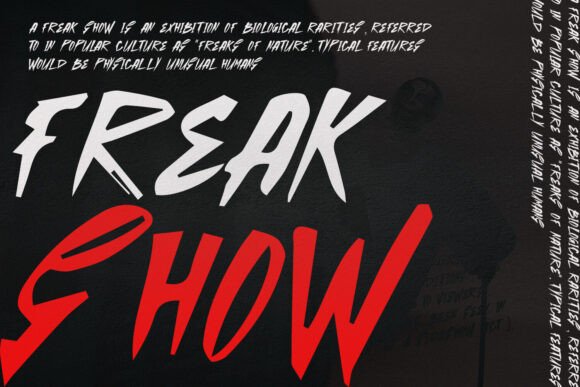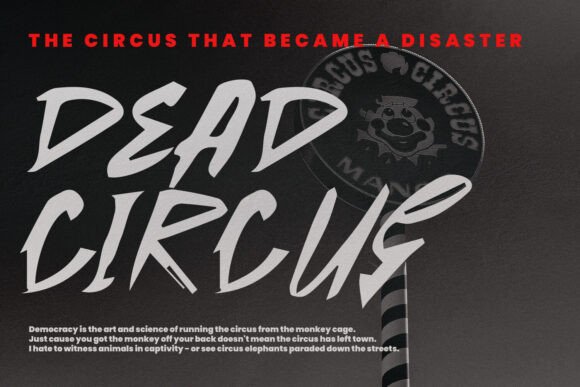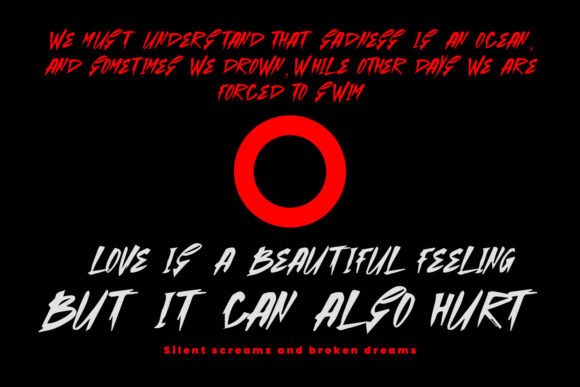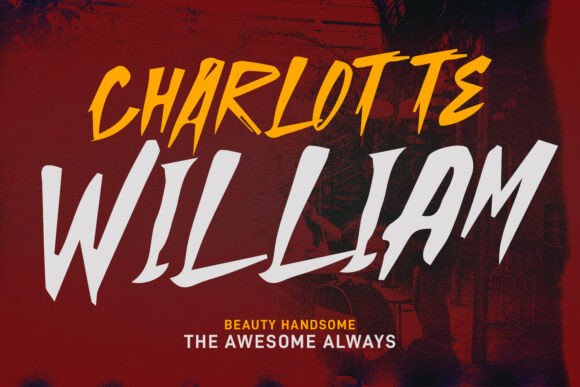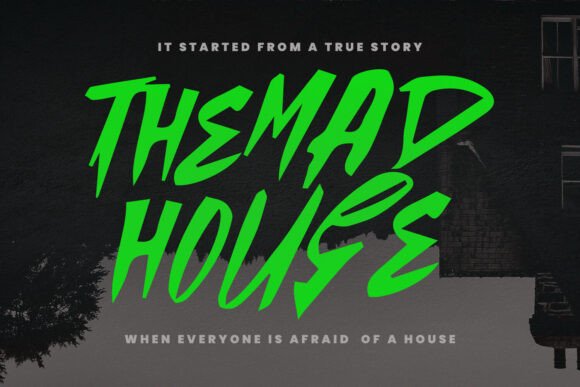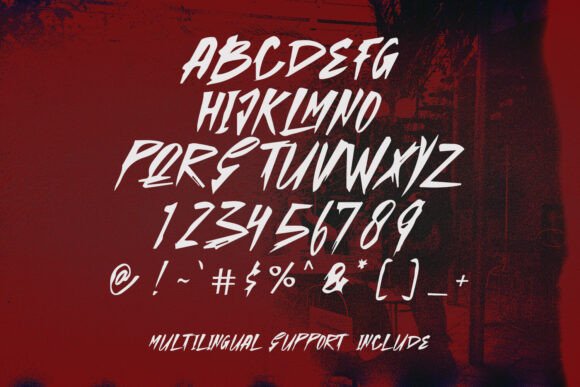
Introduction to Sentan Cabine Font Font
Fonts play a crucial role in design, and the Sentan Cabine Font font is a typeface that brings both character and versatility to any project. Whether you’re working on a branding project, a website, or a print design, the Sentan Cabine Font font offers a unique style that can elevate your work.
Sentan Cabine is a chilling brush display font crafted for horror-themed designs.
With its jagged edges, sharp strokes, and intense energy, this handmade typeface screams drama and suspense Ideal for thriller movie posters, haunted event flyers, spooky merchandise, or bold Halloween branding.
Key Features of Sentan Cabine Font Font
Why Choose Sentan Cabine Font Font?
The Sentan Cabine Font font is more than just a typeface – it’s a design tool that helps you communicate your message with style and clarity. Its unique character set and versatile design make it suitable for a wide range of applications, from elegant invitations to bold headlines.
With its carefully crafted letterforms and balanced proportions, the Sentan Cabine Font font ensures readability and visual appeal across all mediums.
What makes Sentan Cabine Font font special?
The Sentan Cabine Font font stands out with its unique design, exceptional readability, and versatility across various design applications.